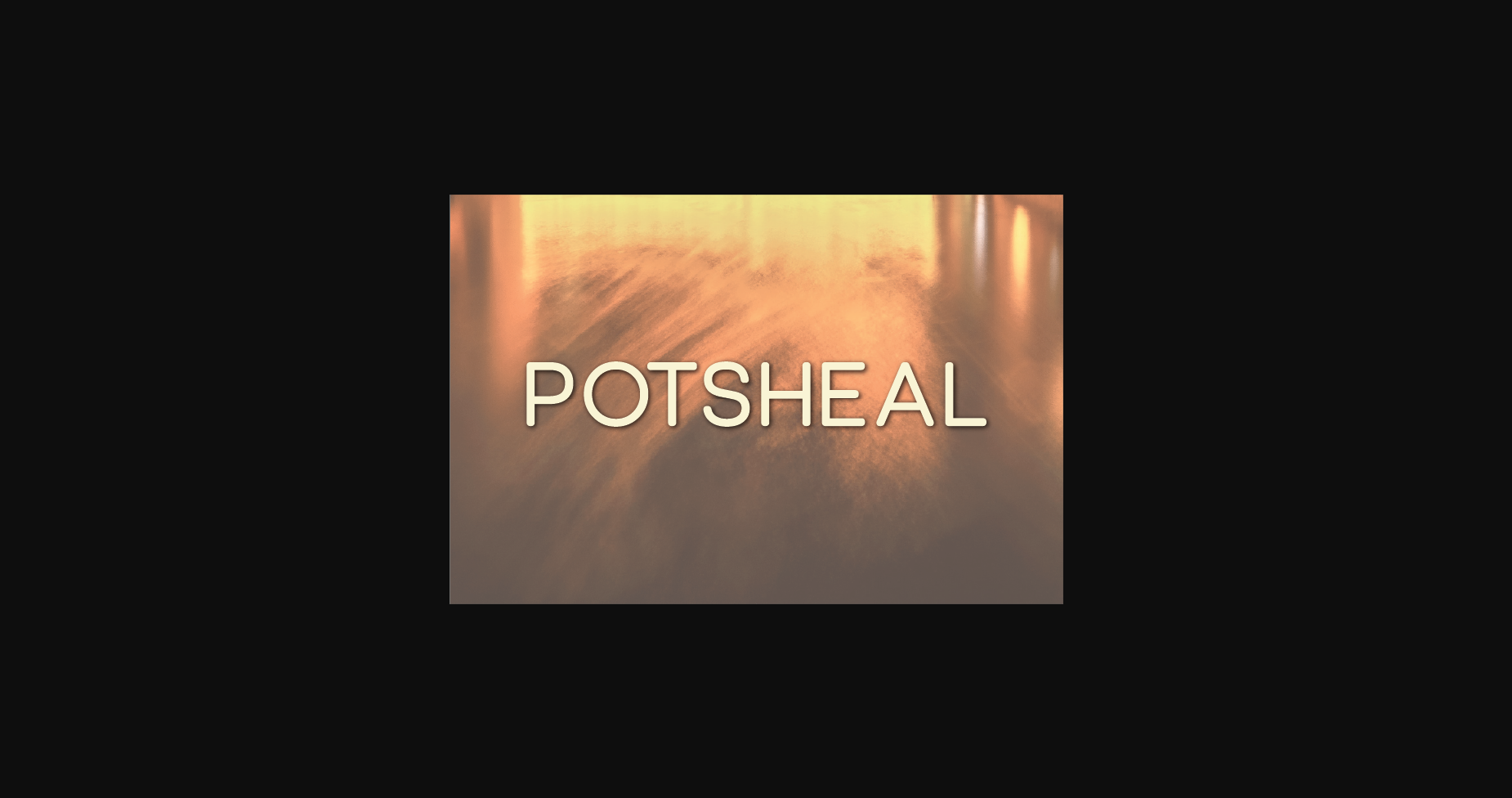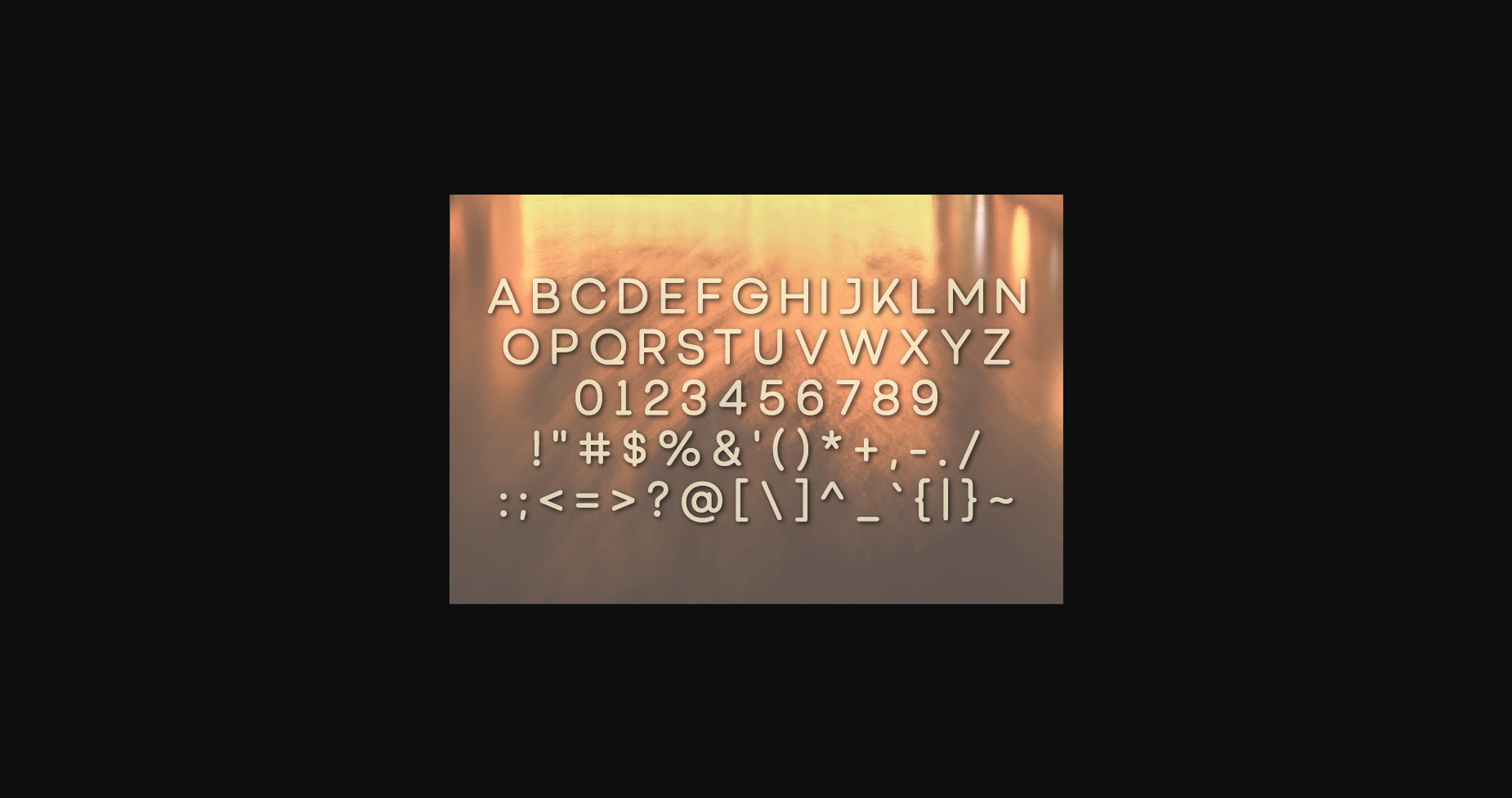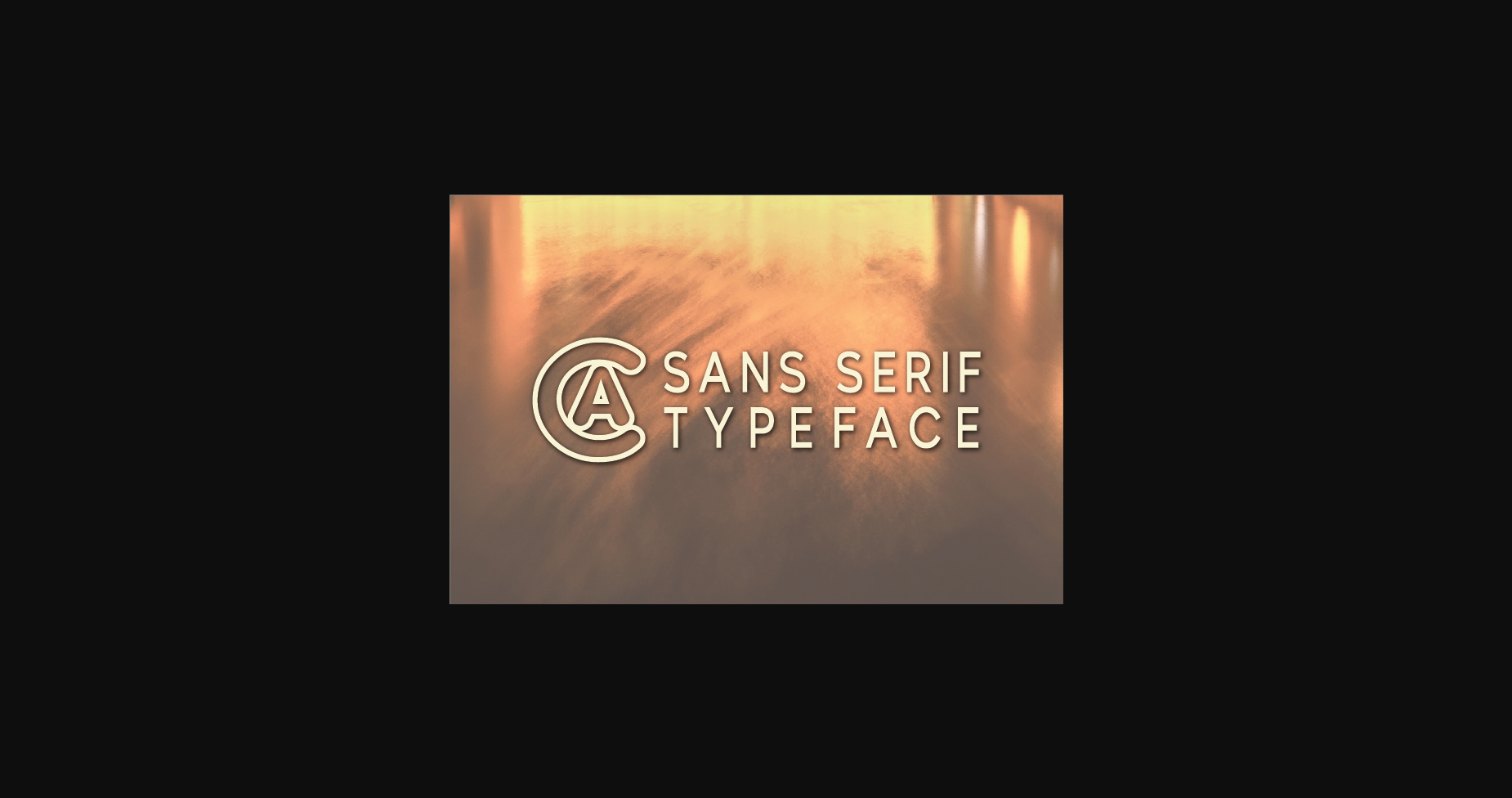
HomeSans Serif FontsPotsheal Font Sans Serif Fonts Potsheal Font FacebookXPinterestWhatsApp 1 of 5 ... Potsheal Font Poster 2... Potsheal Font Poster 3... Potsheal Font Poster 4... Potsheal Font Poster 5... About Potsheal Font Potsheal is a minimal and neat sans serif font. It can easily be matched to an incredibly large set of projects, so add it to your creative ideas and notice how it makes them stand out! DOWNLOAD NOW People also explored Marriage Broker Font Rainbow Font Boston Bruins Font Snow Queen Font The Rowdy House Font Try New Font Jelly Font Rossatelly Font Sunday of Beauty Font 271 0 TagsPotsheal Font Previous articleThelips FontNext articleLemounade Font LEAVE A REPLY Cancel reply Comment: Please enter your comment! Name:* Please enter your name here Email:* You have entered an incorrect email address! Please enter your email address here Website: Save my name, email, and website in this browser for the next time I comment. Personal Use Free Love Memories Personal Use Free Read more about this font Setta Personal Use Free Read more about this font Hello Sister Personal Use Free Read more about this font Glosery Personal Use Free Read more about this font BLOG How to Install and Use Fonts on Windows, macOS, and Web Projects How to Install and Use Fonts on Windows, macOS, and Web Projects Fonts are a crucial part of design and branding. Whether you’re designing a... Where to Buy American Fonts Online in 2024 The 10 Best Handwriting Fonts to Add Personality to Your Designs Free vs Paid Fonts: Why Investing in Premium Fonts Is Worth It